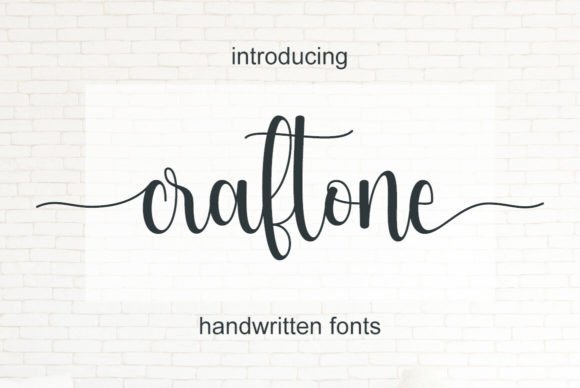
Craftone Font: Elevate Your Designs with Elegance and Sophistication
In the world of typography, few fonts manage to capture the essence of elegance and style as effectively as Craftone. This breathtaking handwritten font is a masterful fusion of sophistication and charisma, making it the perfect choice for a wide range of design applications. From wedding invitations and appreciation notes to memorable quotes, greeting cards, business cards, logos, and more, Craftone brings an unmistakable touch of refinement to any project.
What Makes Craftone Special?
Craftone is more than just a visually appealing font; it’s a creative tool designed to help you deliver unforgettable expressions. Here are some of its key features:
- Exquisite Charisma: Craftone’s unique charm is evident in its elegant strokes and refined lines, making it perfect for designs where a personalized touch is crucial.
- PUA Encoding: Craftone is PUA (Private Use Area) encoded, which means it offers effortless access to a delightful assortment of glyphs and alternates. This feature allows you to experiment with different styles and variations, giving your designs an extra layer of creativity and uniqueness.
- Versatility: Whether you’re working on wedding invitations, business cards, or social media graphics, Craftone’s versatility ensures it can adapt to any design need.
Ideal Design Applications for Craftone
Craftone’s elegance and sophistication make it suitable for a variety of design projects. Here are some of the ideal applications for this beautiful font:
- Wedding Invitations: Add a touch of romance and sophistication to your wedding invitations with Craftone’s elegant script.
- Appreciation Notes: Express gratitude with style using Craftone’s refined and heartfelt typography.
- Memorable Quotes: Give your favorite quotes a unique and impactful presentation with Craftone’s distinctive charm.
- Greeting Cards: From birthday wishes to holiday greetings, Craftone helps you create warm and personalized cards.
- Business Cards: Elevate your professional image with Craftone’s sophisticated and stylish typography.
- Logos: Craftone can also be used to create unique and memorable logos that stand out from the competition.
Tips for Getting the Most Out of Craftone
To truly leverage the potential of Craftone, consider the following tips:
- Experiment with Glyphs and Alternates: Take advantage of Craftone’s PUA encoding to explore different glyphs and alternates. This can help you add variety to your designs and keep them fresh.
- Mix and Match with Other Fonts: While Craftone is stunning on its own, it can also be paired with other fonts to create interesting contrasts and hierarchies in your designs.
- Pay Attention to Spacing: As with any font, ensure that you pay attention to spacing and kerning to maximize the impact of Craftone.
- Use it for Headlines and Body Text: Craftone’s readability makes it suitable for both headlines and body text, allowing you to maintain consistency in your designs.
Craftone is more than just a font; it’s a creative tool that can elevate your designs to new heights of elegance and sophistication. With its exquisite charisma, PUA encoding, and versatility, Craftone is the perfect choice for anyone looking to add a personalized touch to their projects. Whether you’re a designer, a small business owner, or simply someone who appreciates beautiful typography, Craftone is sure to inspire and enhance your creative expressions.
Embrace the Elegance of Craftone
In a digital world where typography plays a crucial role in communication and aesthetics, Craftone stands out as a beacon of elegance and style. By incorporating this beautiful font into your designs, you’re not just choosing a typeface; you’re embracing a way to connect with your audience on a more personal and sophisticated level. So why settle for ordinary when you can create something truly extraordinary with Craftone?